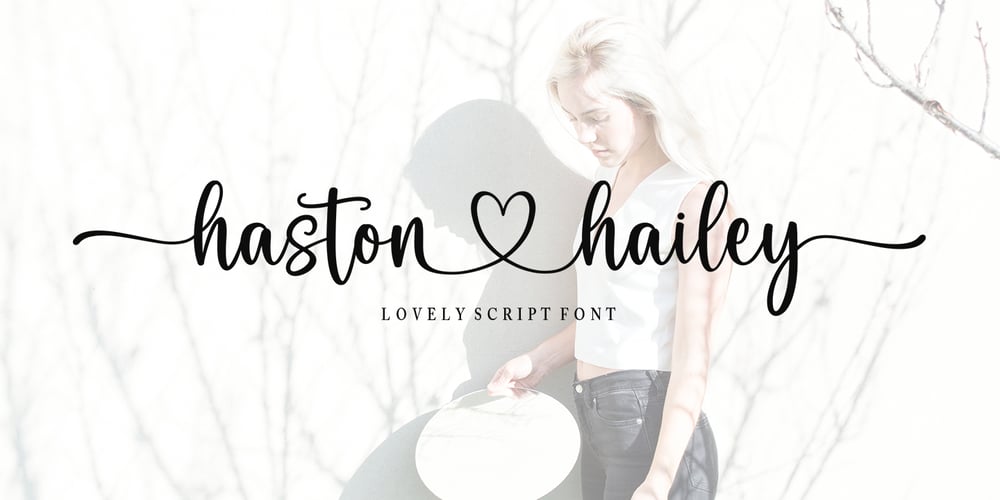
Haston Hailey Font Family was designed by Mu Fazzal and published by Bosstypestudio. Haston Hailey contains 1 styles and family package options. Haston Hailey is a new calligraphy font which is fresh, funny, interesting and with a cute heart that can be connected. It is suitable for greeting cards, branding materials, business cards, quotes, posters, and more!